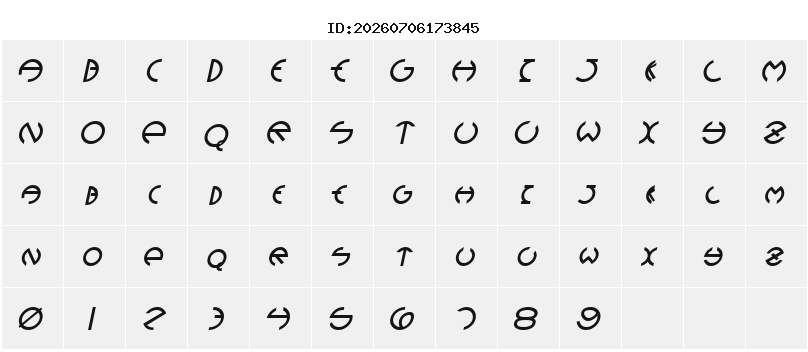
• Font Name: Devil Heavy
• Full Font Name: Devil Heavy Italic
About Devil Heavy.ttf
Devil Heavy.ttf is a modern, elegant sans-serif font designed for ultimate readability and visual harmony. Perfect for branding, headlines, web design, and print materials.